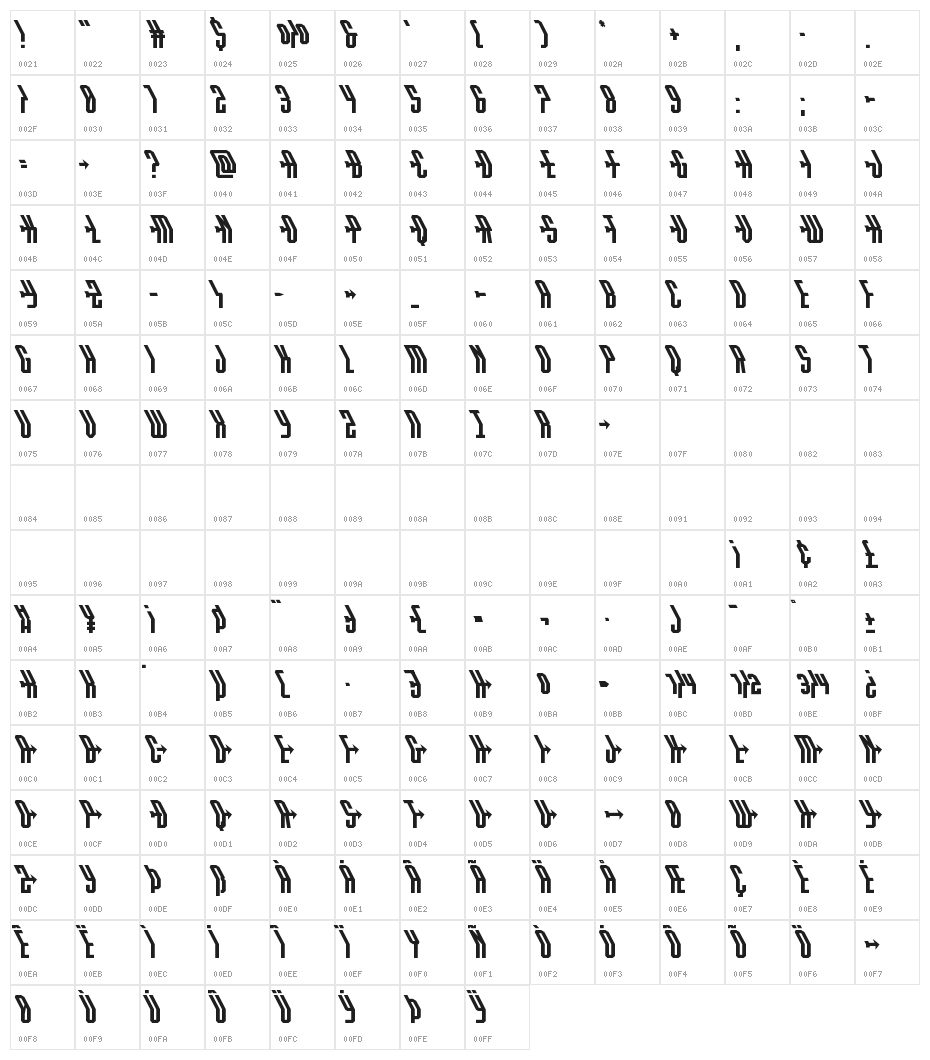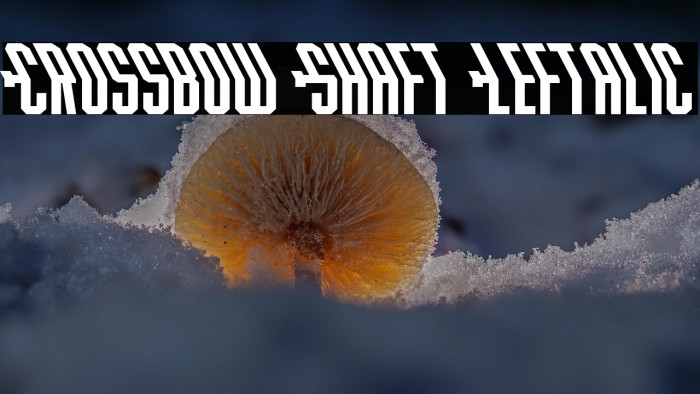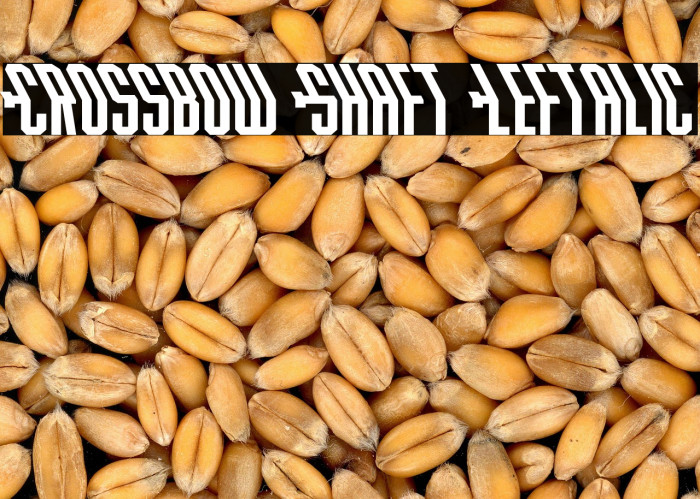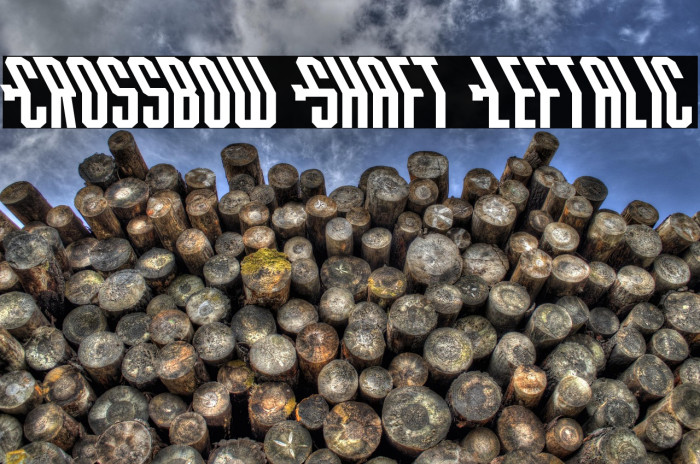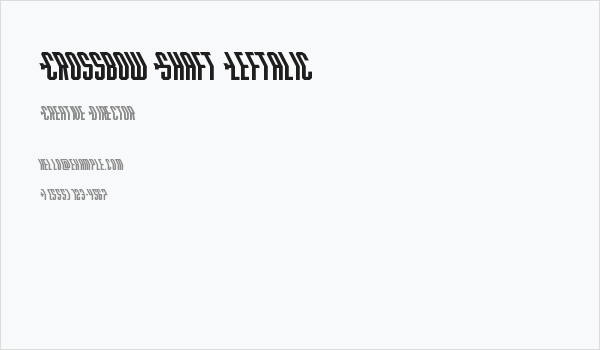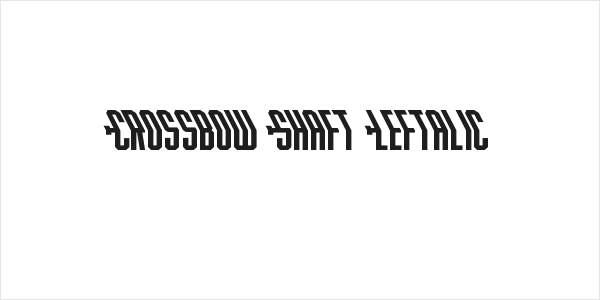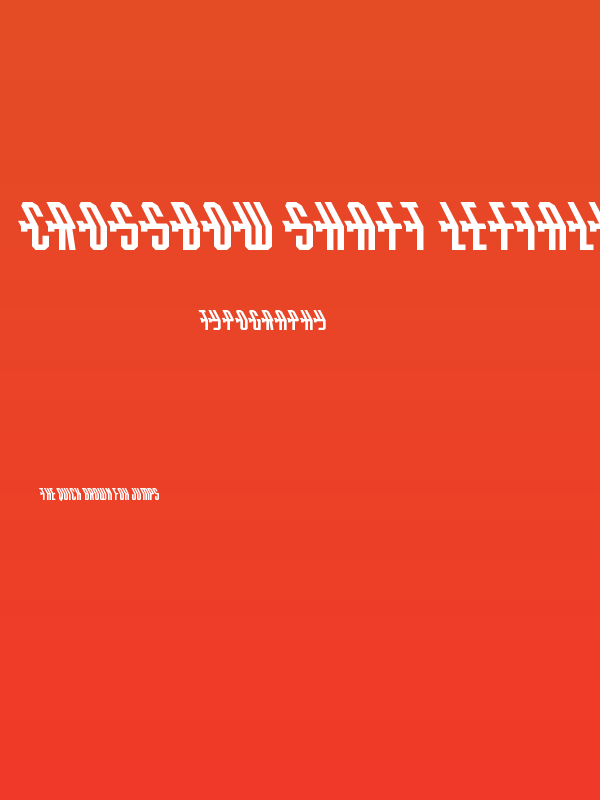
Crossbow Shaft Leftalic Font
Crossbow Shaft Leftalic Description
This font features a bold and angular design with a distinct geometric style. The characters are constructed with sharp edges and a consistent width, giving it a strong and impactful appearance. The uppercase and lowercase letters maintain a uniform height, contributing to a cohesive look. The numbers and special characters follow the same angular theme, ensuring a seamless integration with the alphabet. The font's unique structure makes it stand out, suitable for projects that require a modern and edgy aesthetic.